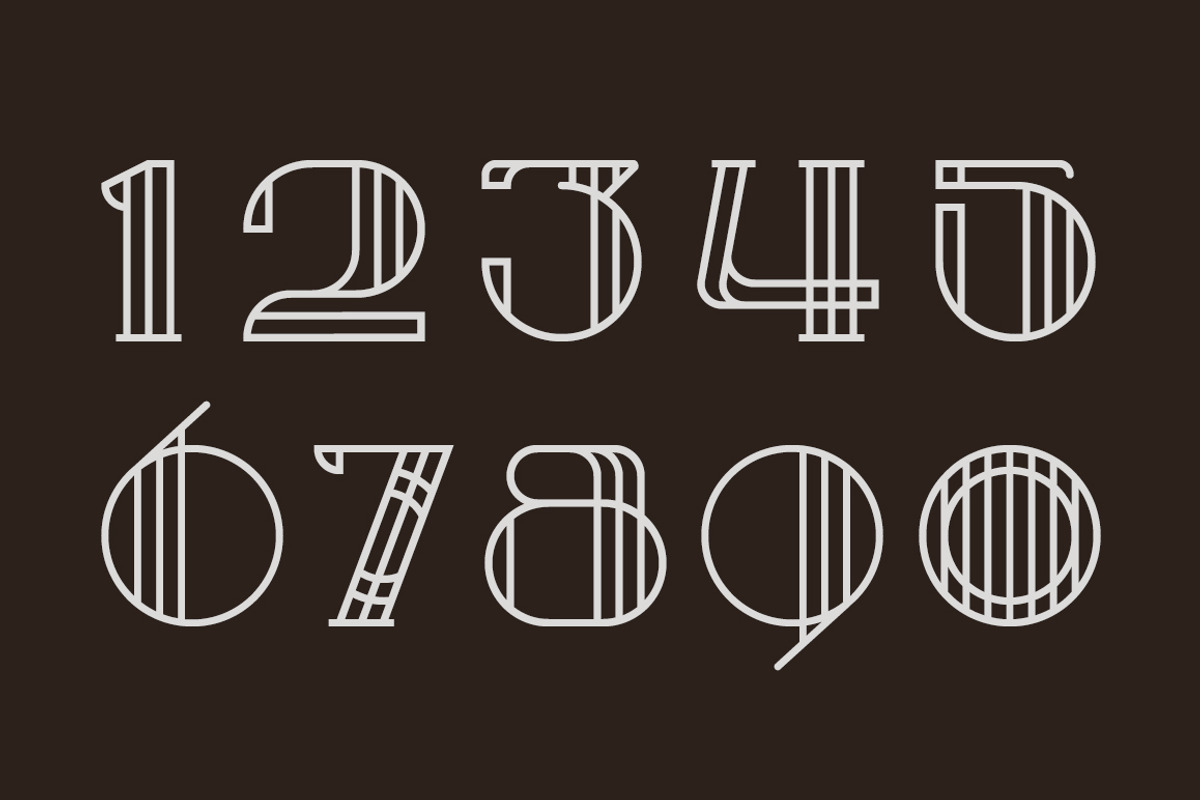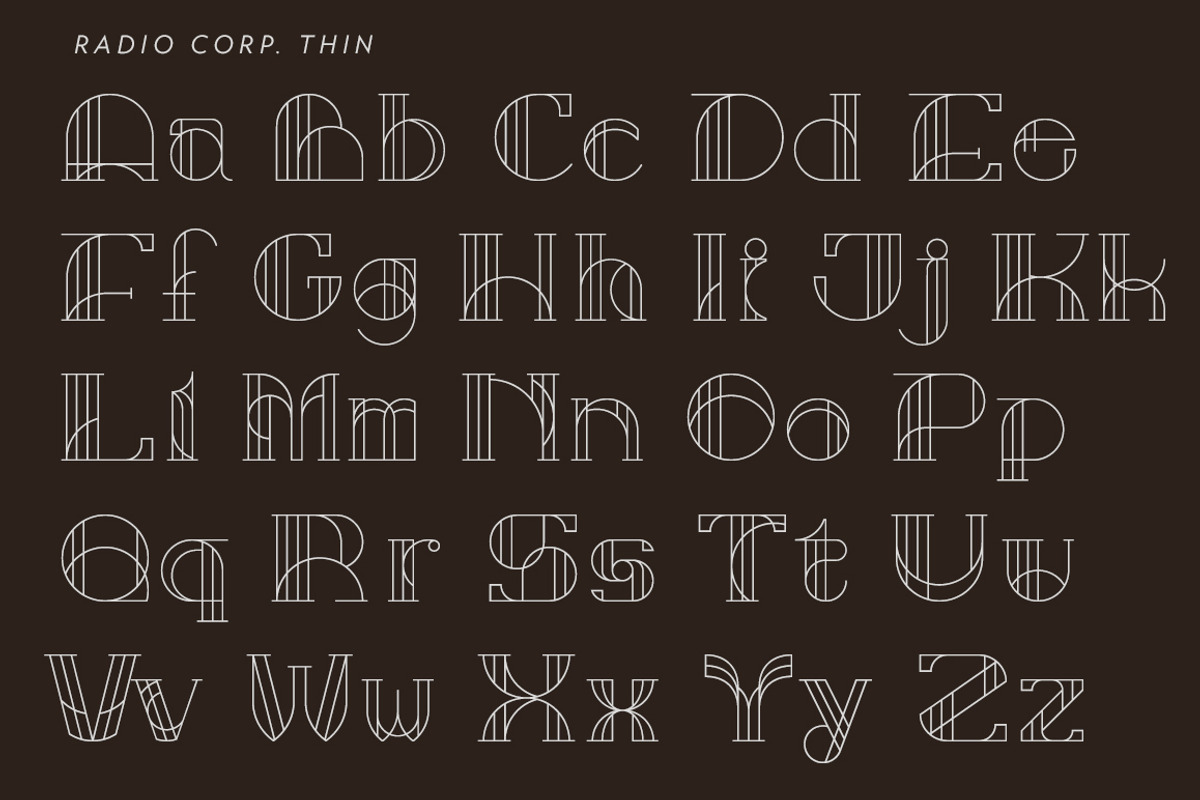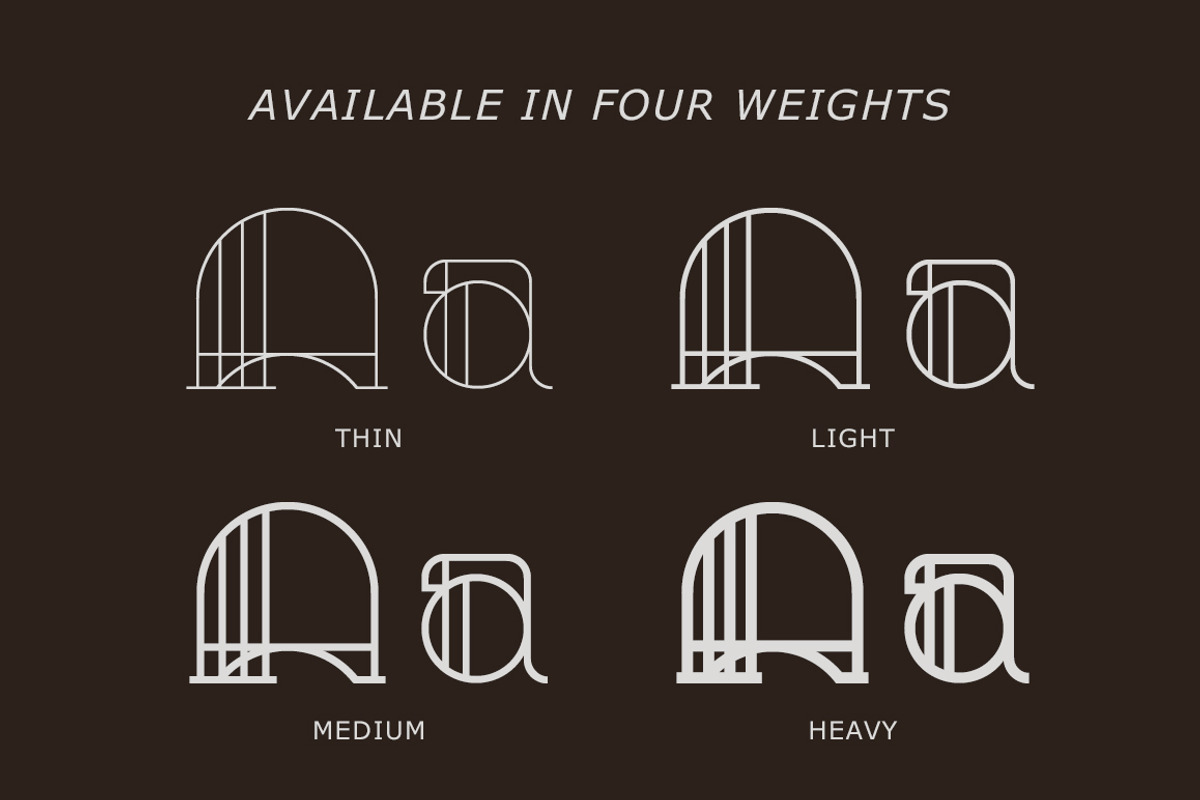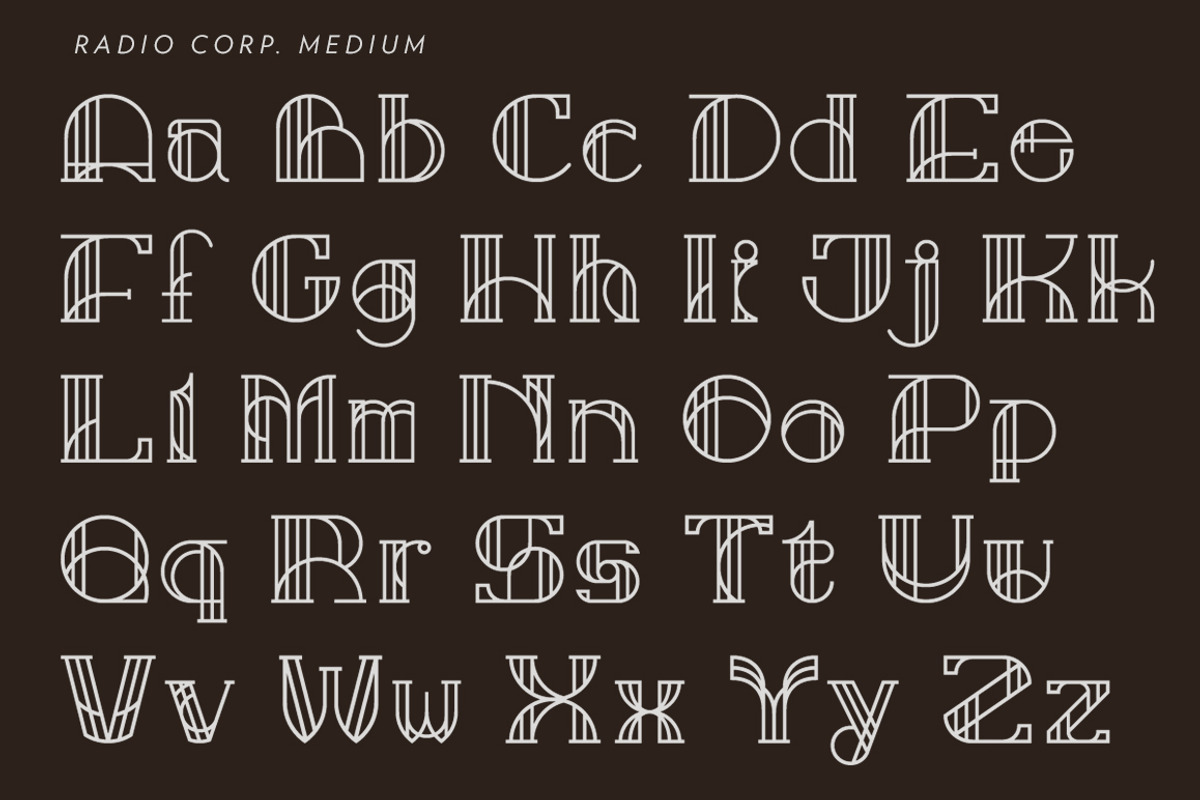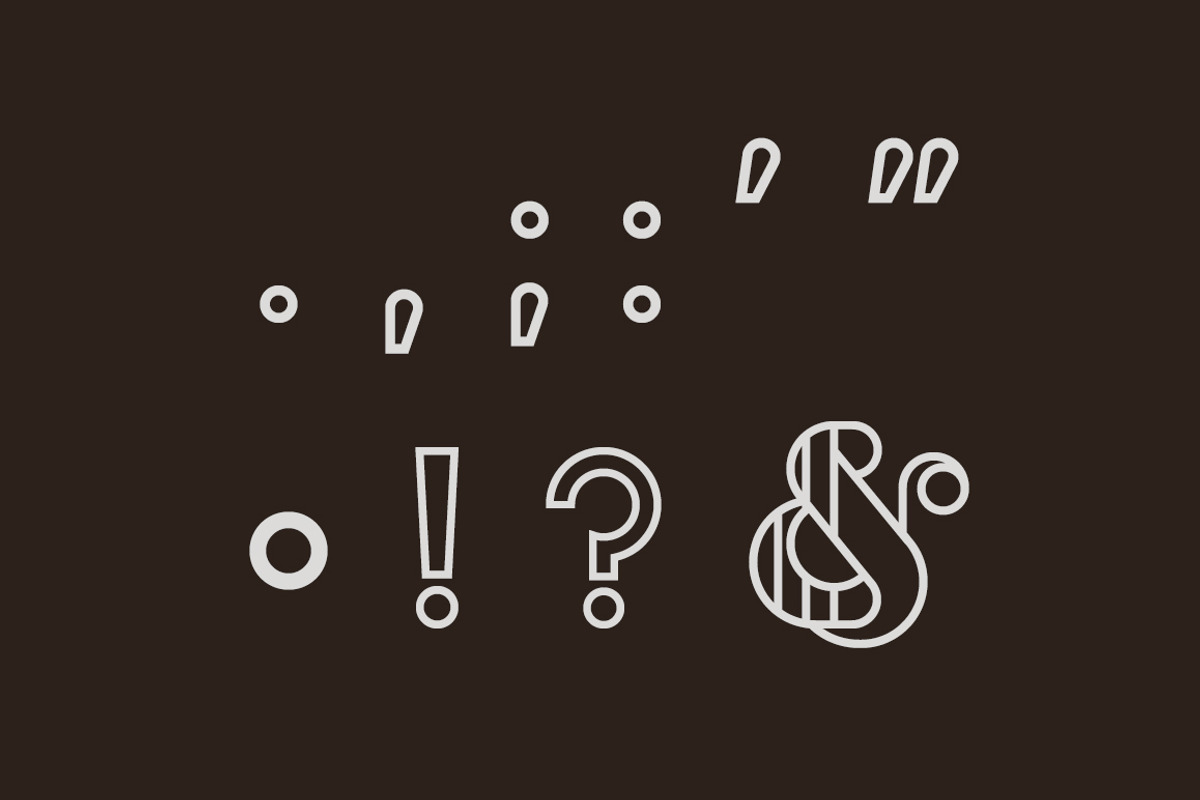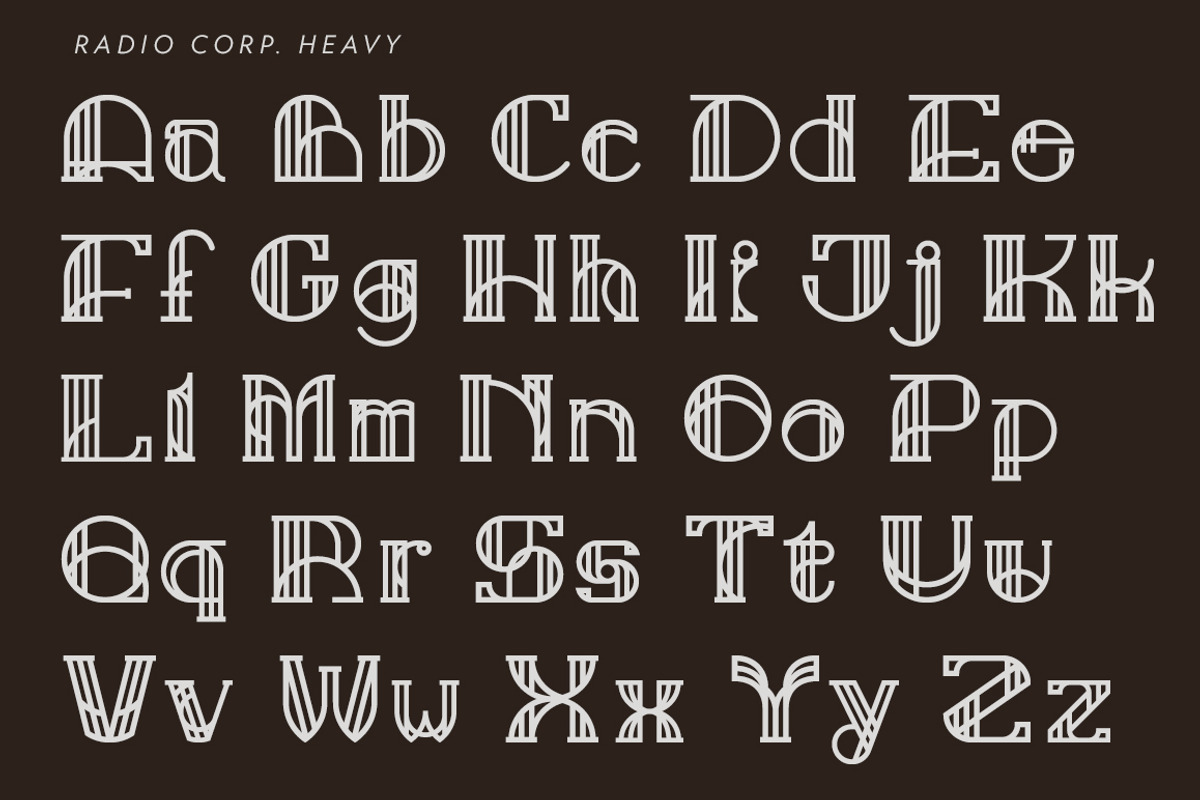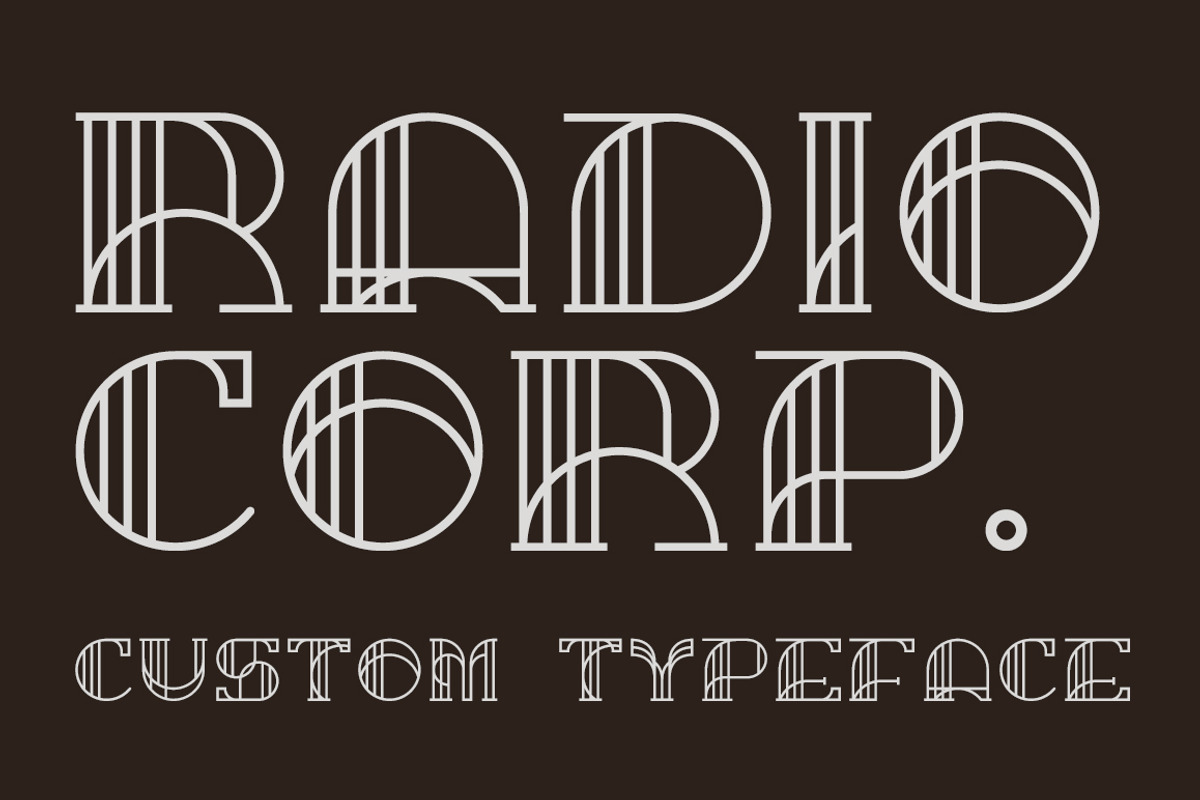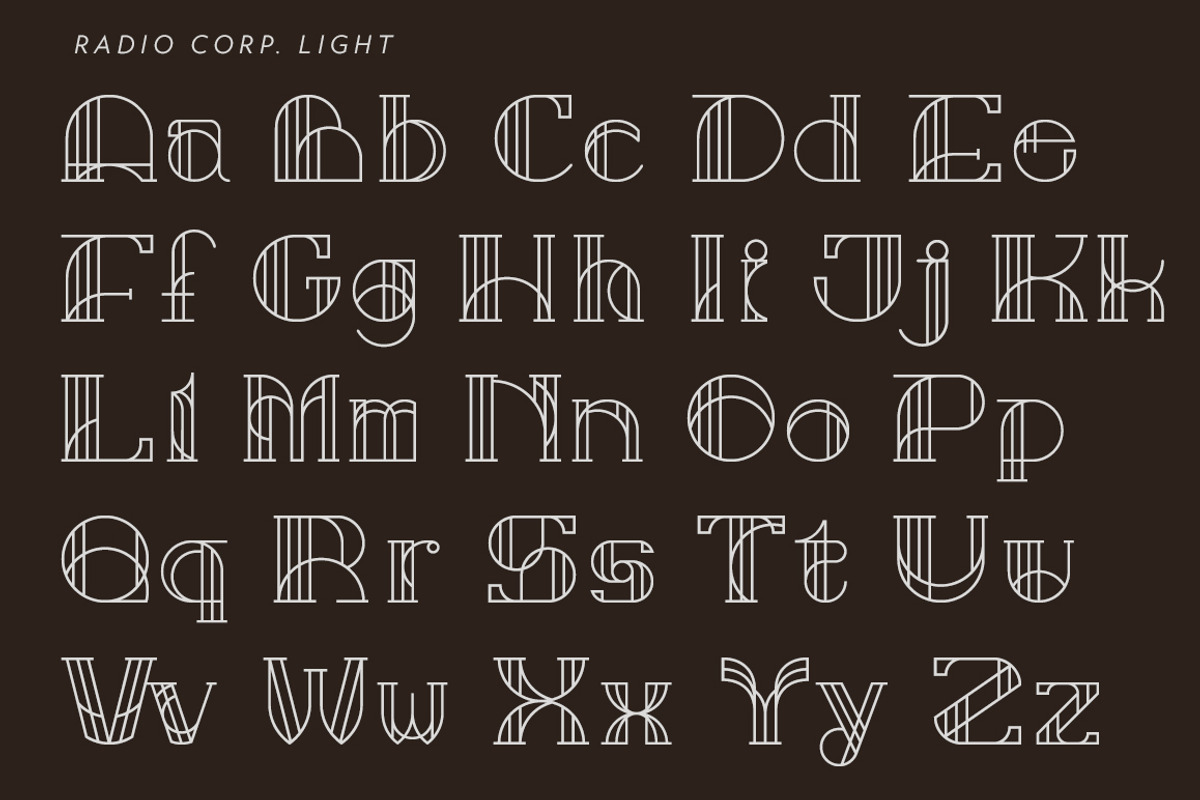
Radio Corp - Display Typeface
Radio Corp - Display Typeface by Almanac Design is a font selected for branding, posters, packaging, typography.
- Radio Corp Thin
- Radio Corp Light
- Radio Corp Medium
- Radio Corp Heavy
Radio Corp - Display Typeface by Almanac Design fits naturally into Branding, posters, packaging, typography.